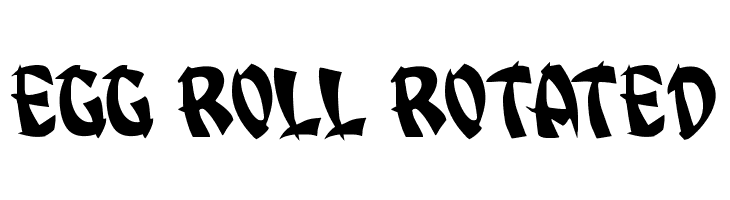
A decorative blackletter-style font with intricate flourishes and sharp, angular strokes.
( Fonts by Curosio )
A tall, slender, hand-drawn font with wide spacing and elegant strokes.
( Fonts by Doehantz Studio - Abduhan Fikhri - Personal-use only. For commercial use please contact owner. )
A dynamic and flowing script font with elegant curves and pointed edges.
( Fonts by zulkhairilettering - Zulkhairi M Saleh - Personal-use only. For commercial use please contact owner. )
A decorative cursive font with elegant loops and swashes.
( truefonts.blogspot.com )
A textured, dotted font with a playful and artistic style.
( Fonts by Typologic - Fadiel Muhammad - Personal-use only. For commercial use please contact owner. )
A decorative and bold font with angular details and star-like embellishments.
( Fonts by Lemonthe - Dwi Ahidian - Personal-use only. For commercial use please contact owner. )
A sophisticated cursive script font with a signature-like flow and dynamic strokes.
( Fonts by Fabrika De Typos - Marcio Hirosse - fabrikadetypos.blogspot.com )
A bold slab serif font with strong, well-defined characters.
A bold, playful font with cut-out patterns for a textured look.
A bold, playful font with a unique dotted pattern inside each character.
( Fonts by Maelle.K - Thomas Boucherie )
An elegant and sophisticated script font with intricate flourishes.
( Fonts by Creatype Studio - Rian Rahardi - Personal-use only. For commercial use please contact owner. )
A lively handwritten font with fluid strokes and a playful elegance.
( Fonts by Biham Santoso - Personal-use only. For commercial use please contact owner. )
A classic serif font with elegant thin strokes and subtle curves.
( Fonts by Biham Santoso - Personal-use only. For commercial use please contact owner. )
A classic serif font with elegant strokes and refined serifs.
( truefonts.blogspot.com )
A decorative font with bold uppercase letters enclosed in star shapes.
( truefonts.blogspot.com )
A collection of decorative star and geometric shapes for creative design use.
( Fonts by Denny Sutanto )
( truefonts.blogspot.com )
A decorative star-themed dingbat font with diverse star icons.